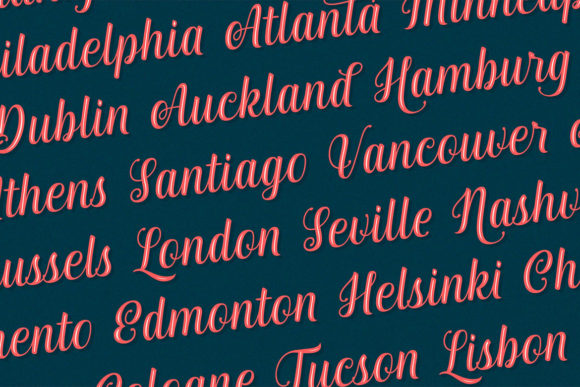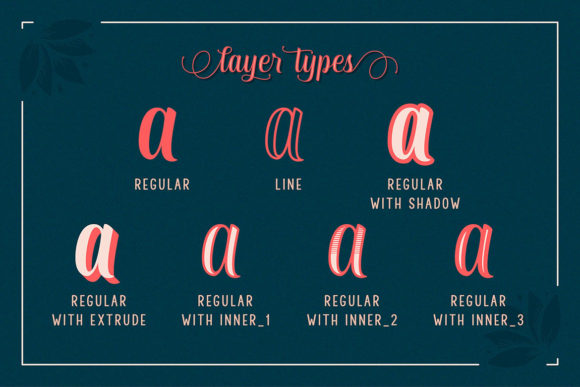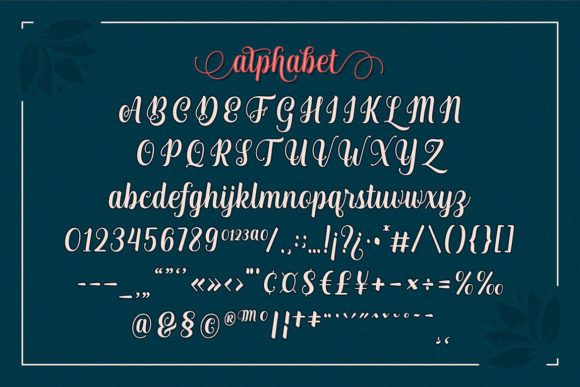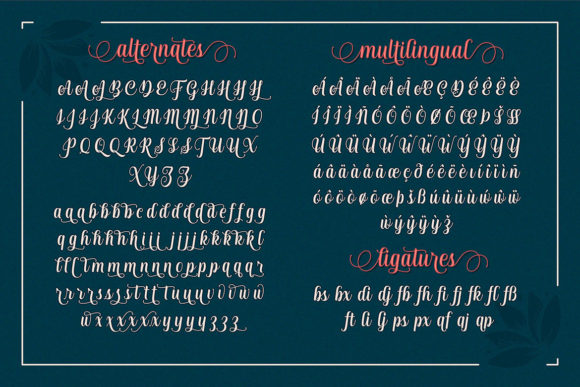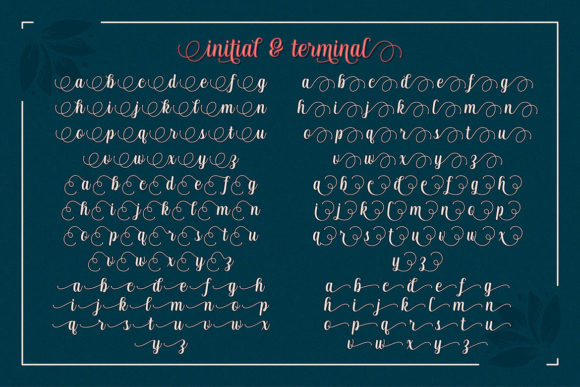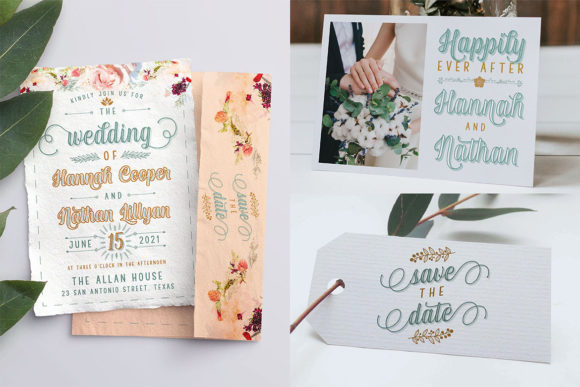
Introduction to Nadella Font
Nadella is a great layered script font.
It features 8 different styles that you can combine to make an even more versatile design Take your designs to the next level with this amazing font.
Key Features of Nadella Font
Why Choose Nadella Font?